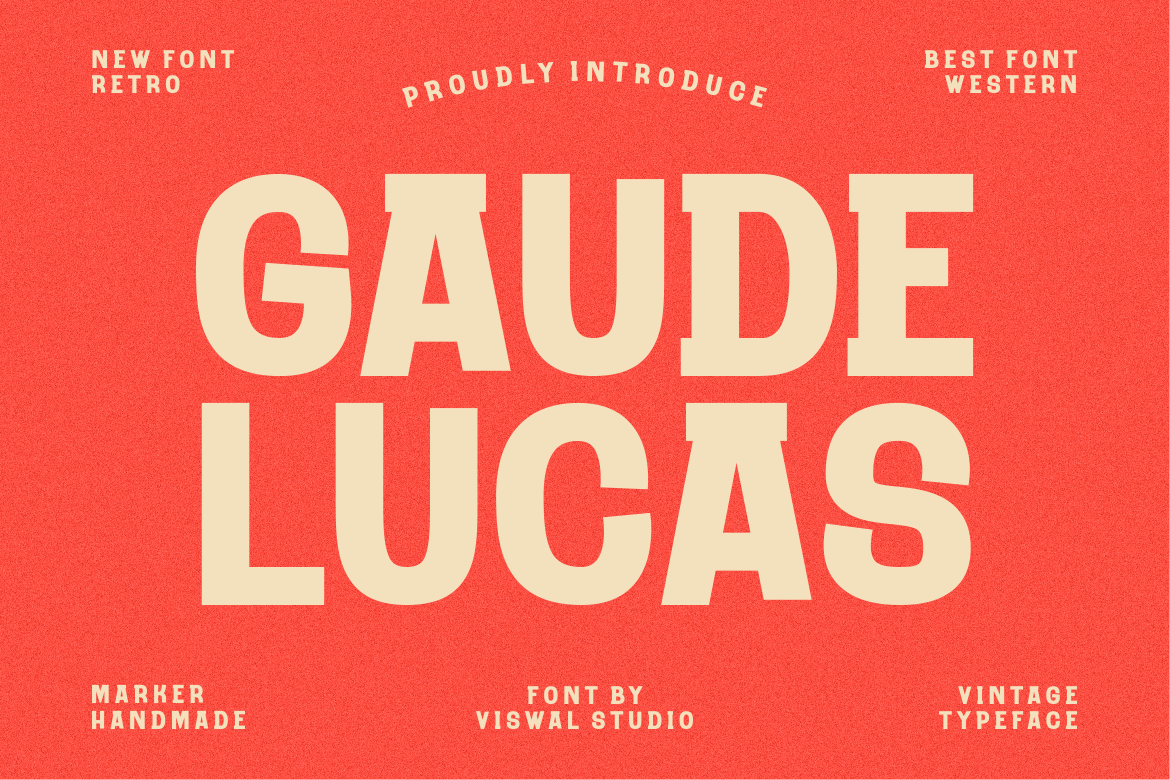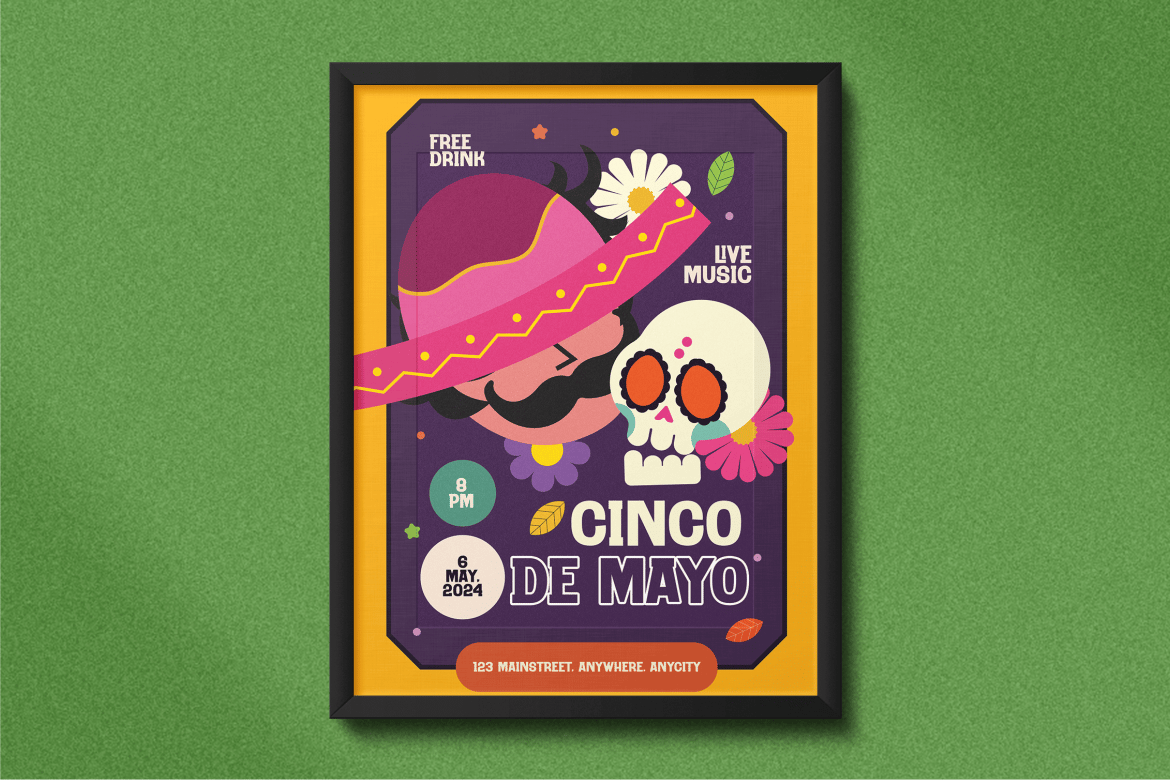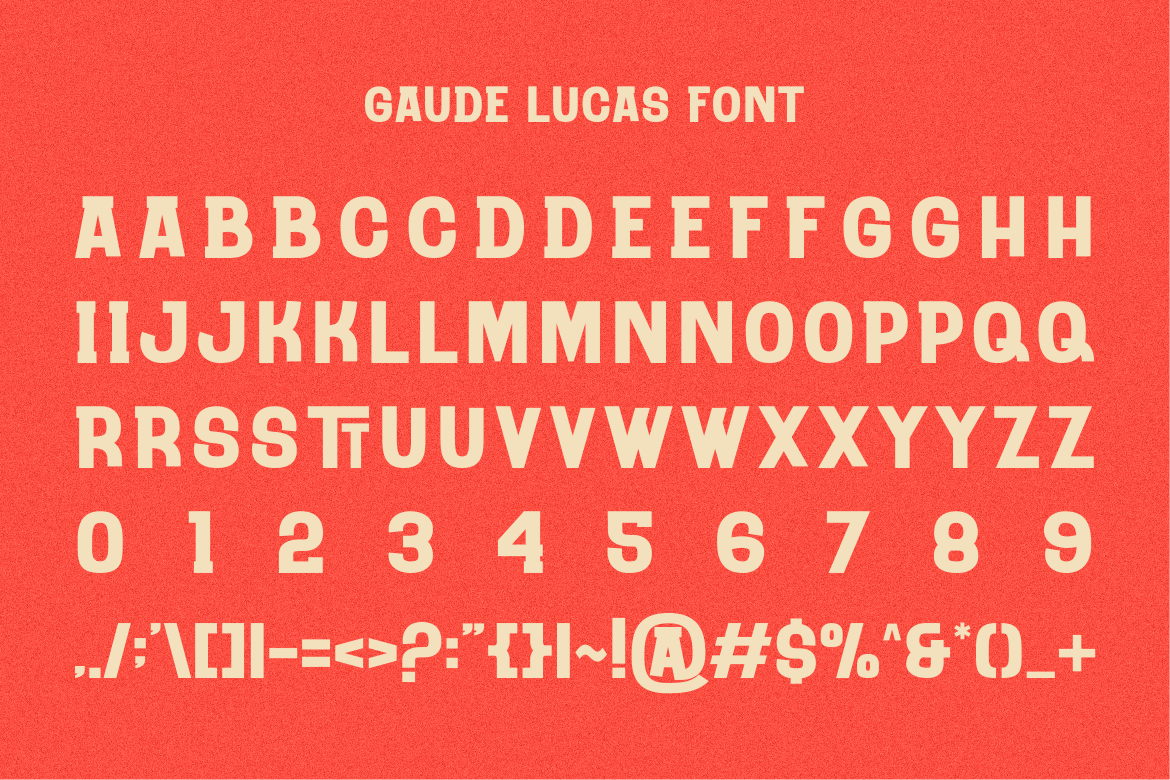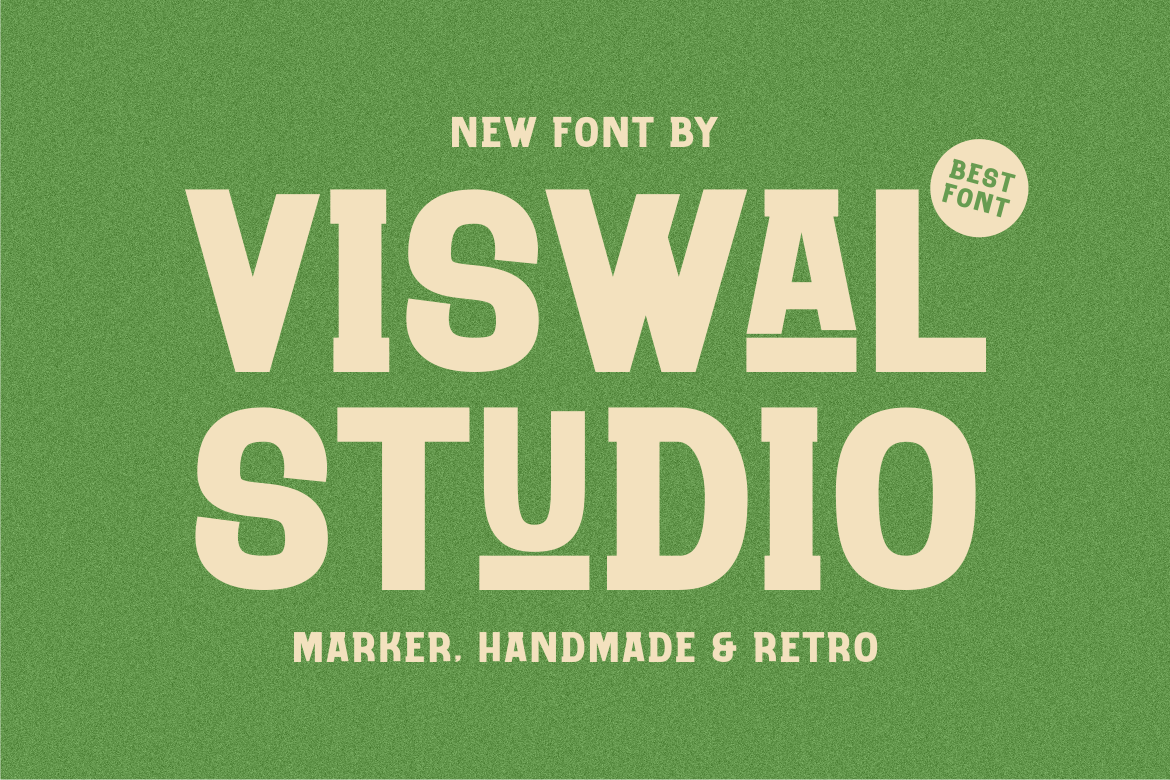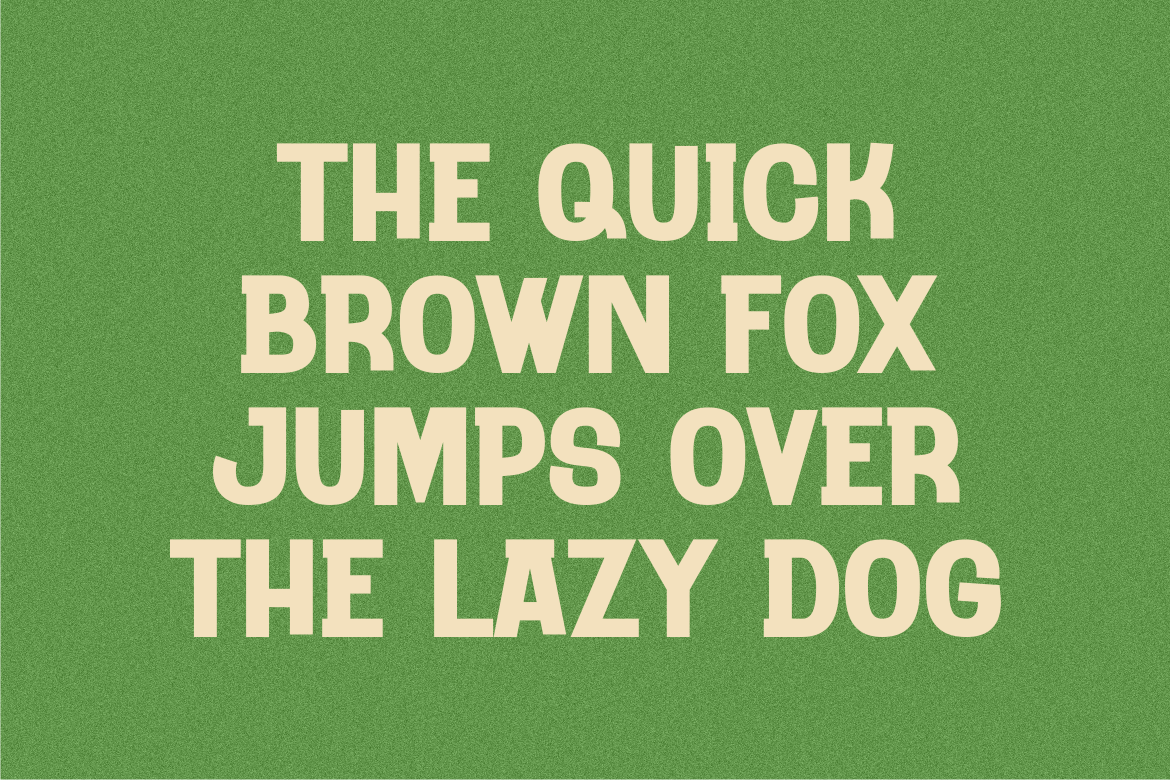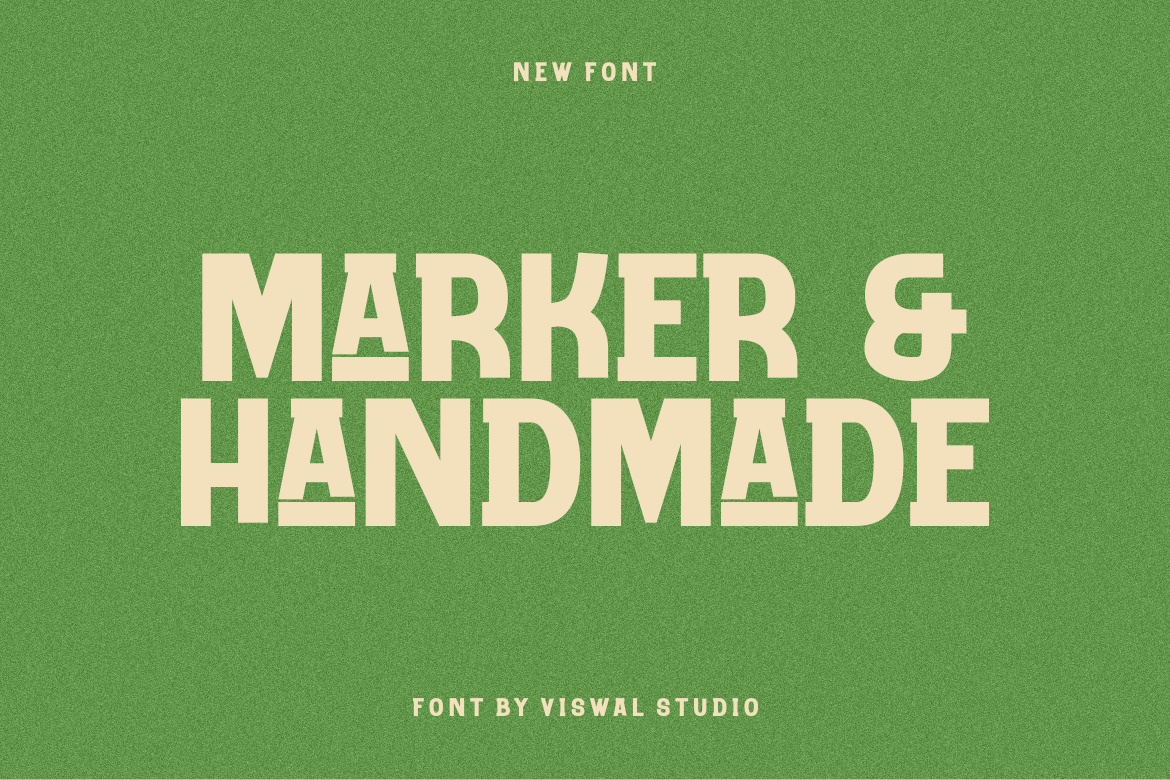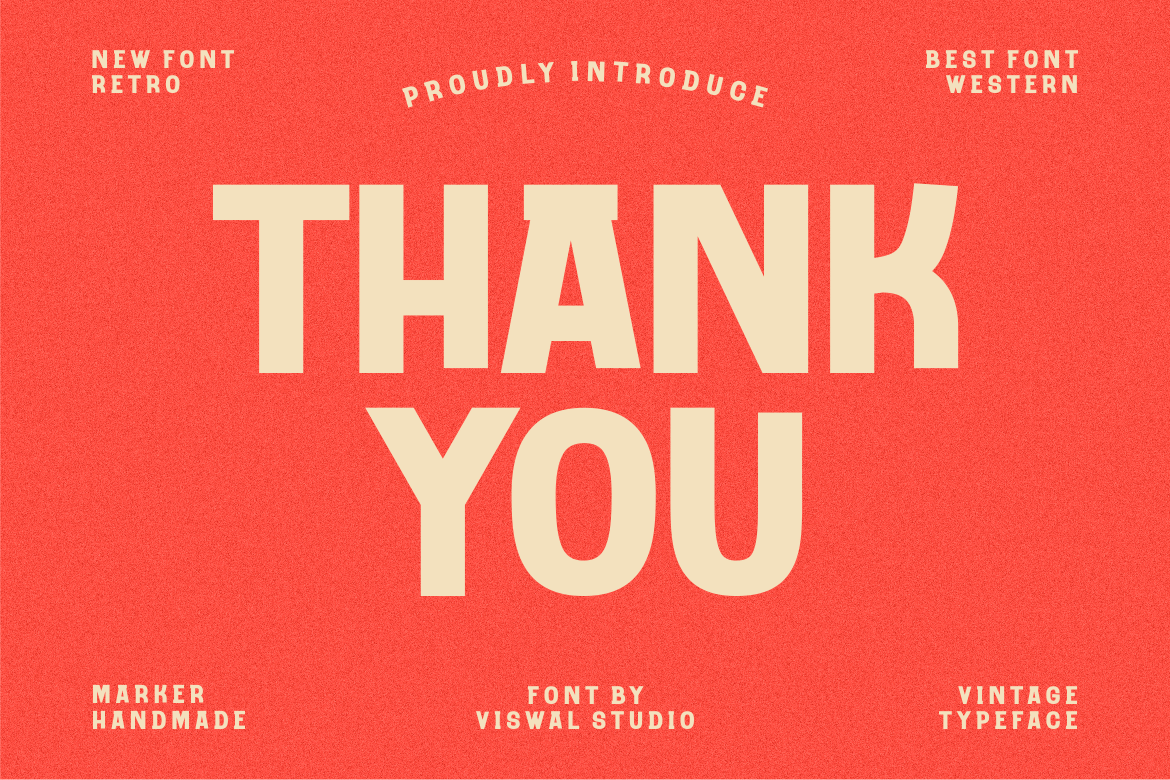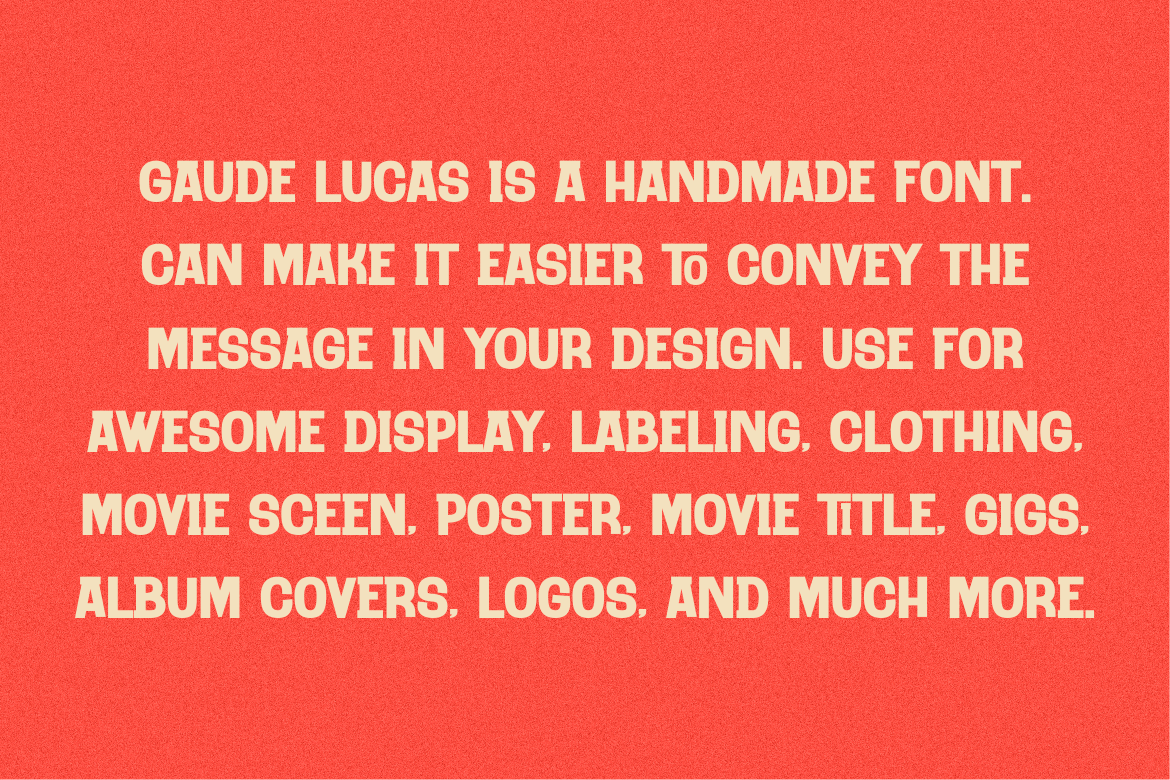
Gaude Lucas – Handmade Marker Font
Presenting Gaude Lucas – Font is suitable for badge, labels, logo, branding, magazine, poster and etc. Our fonts have Uppercase & Lowercase, Numeral & Punctuation, Multilingual support and Opentype Features. For Amazing designs you can mix with other fonts as a complement.